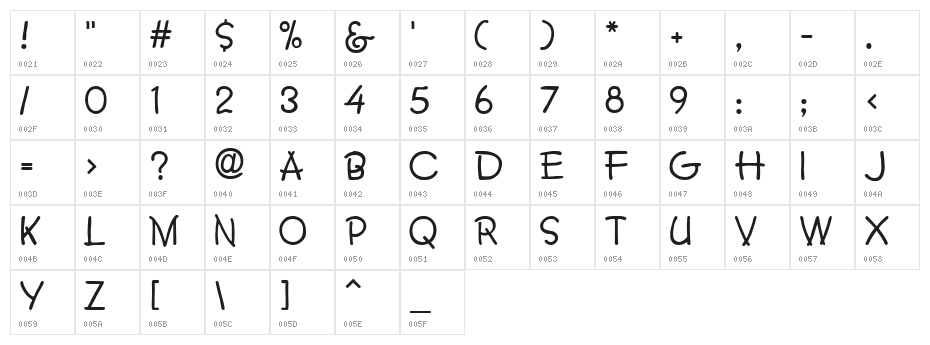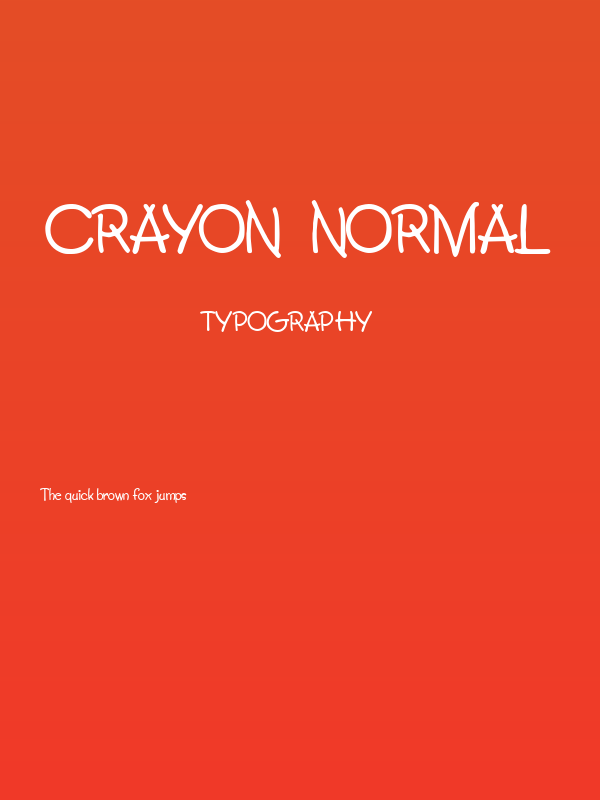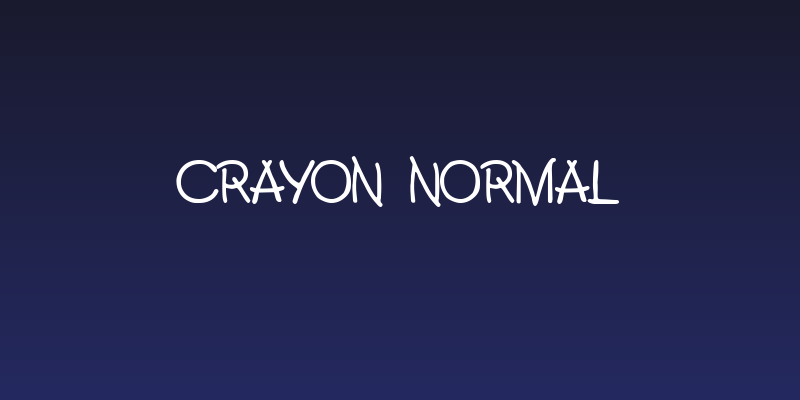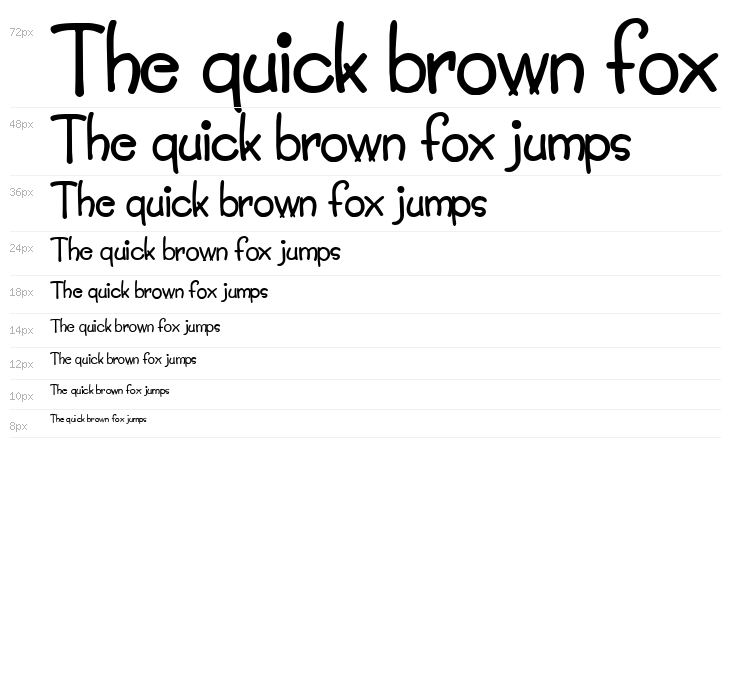
Crayon Normal Font
Crayon Normal Description
This playful and whimsical font features a hand-drawn, crayon-like style that evokes a sense of childhood creativity and fun. The letters are rounded and slightly irregular, giving them a casual and informal appearance. The uppercase letters are bold and prominent, while the lowercase letters maintain a consistent flow with a slightly more condensed form. Numbers and special characters follow the same playful aesthetic, making the font versatile for various creative projects. The overall look is approachable and friendly, ideal for designs that aim to capture a youthful or artistic vibe.
| Proposed Projects | Ideal for children's books, educational materials, playful branding, and creative art projects. |